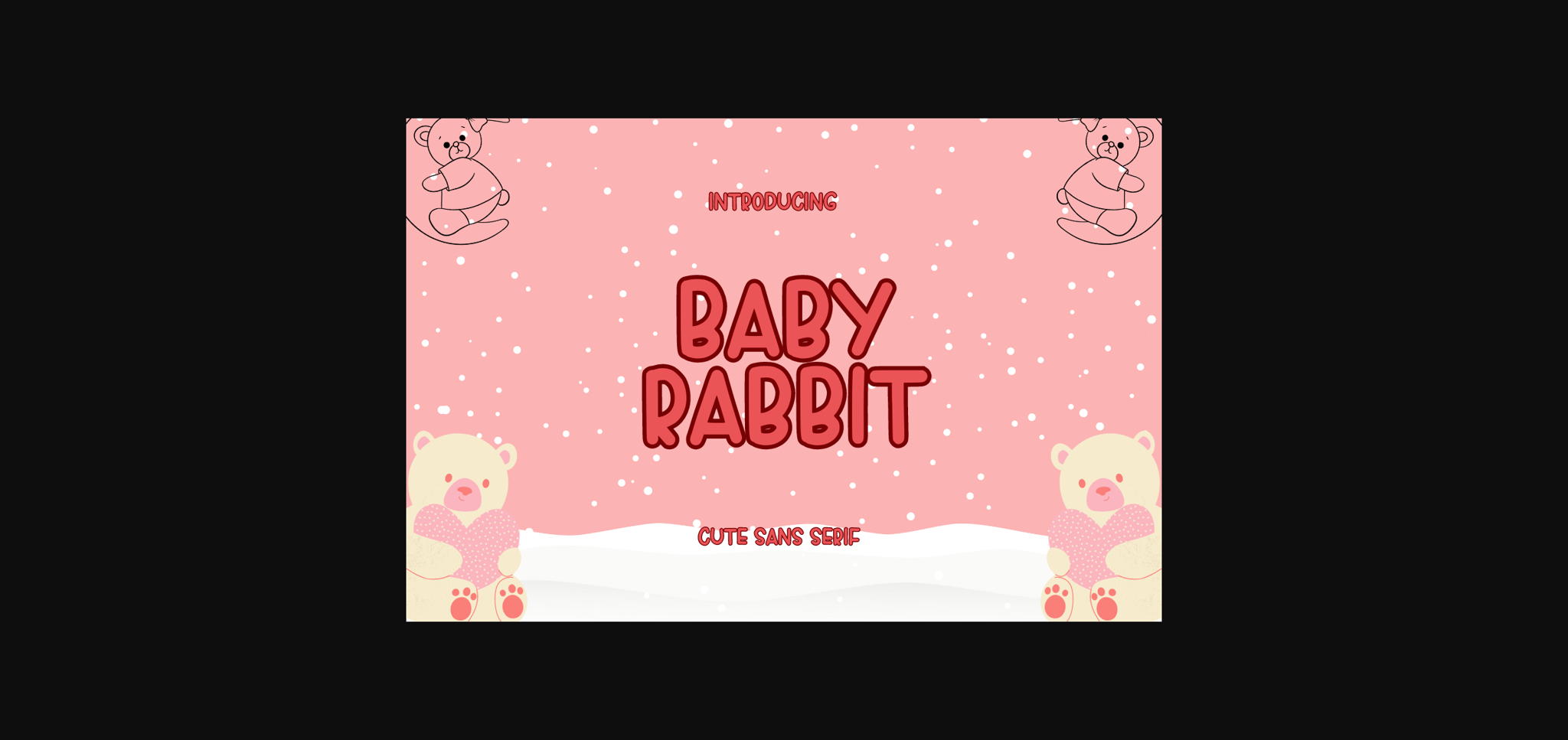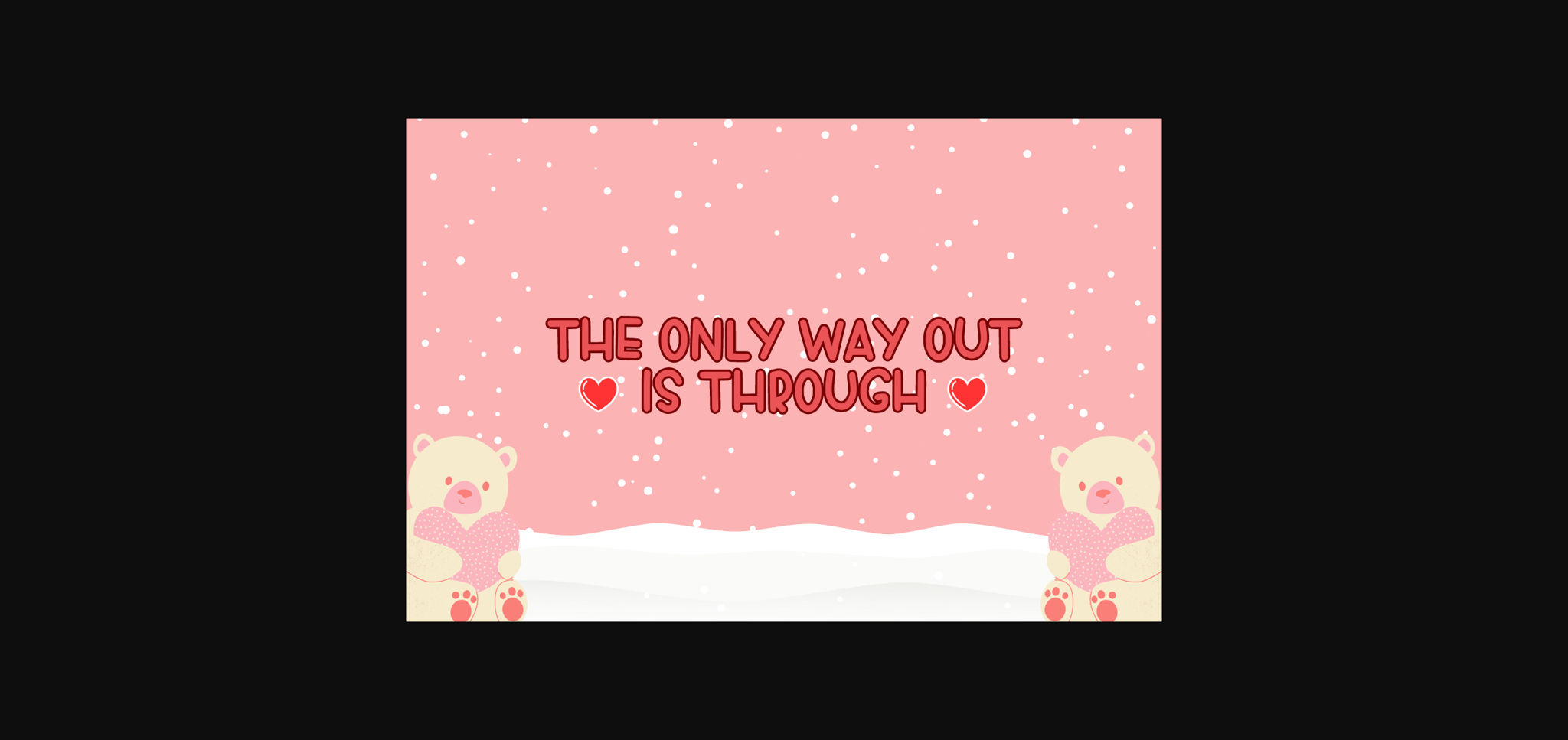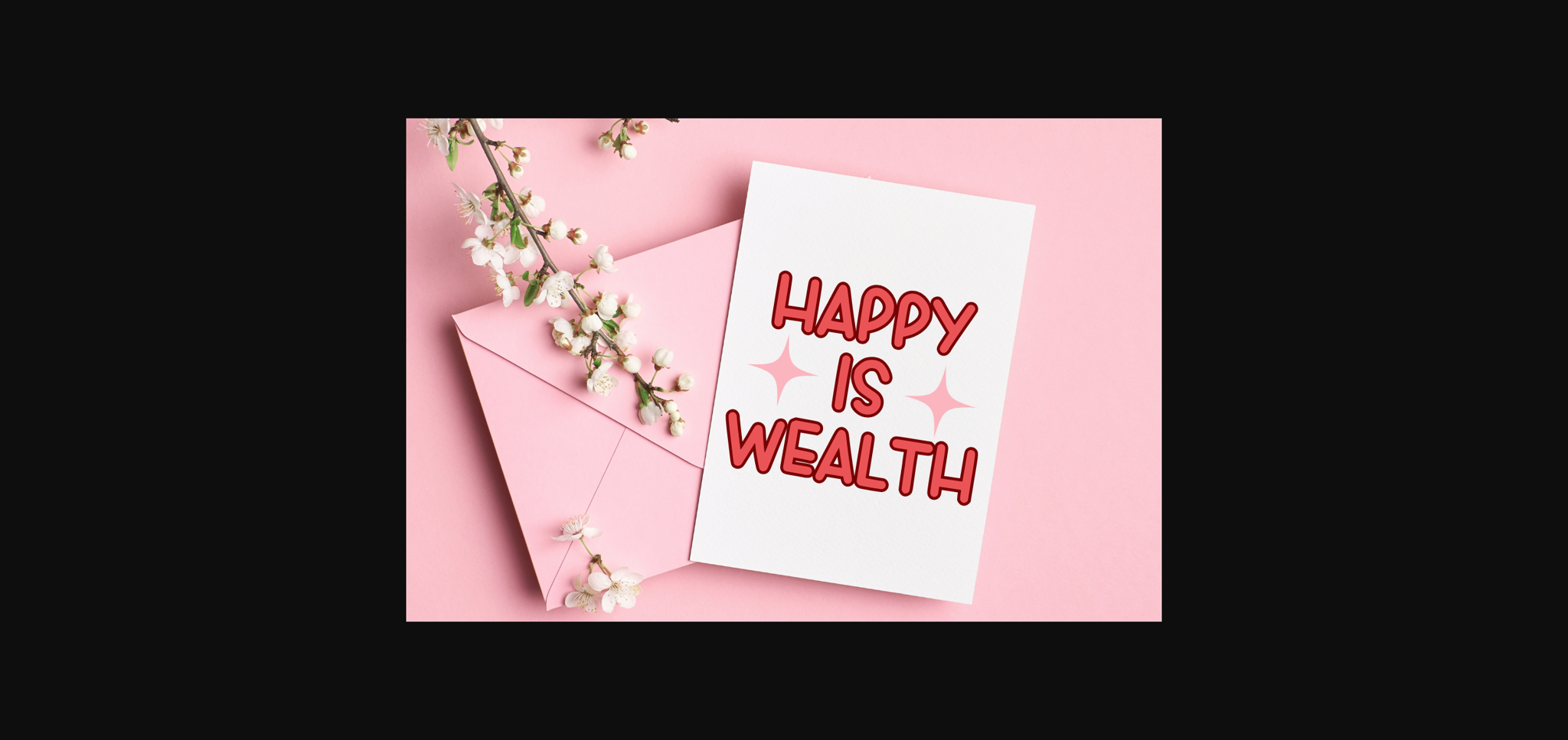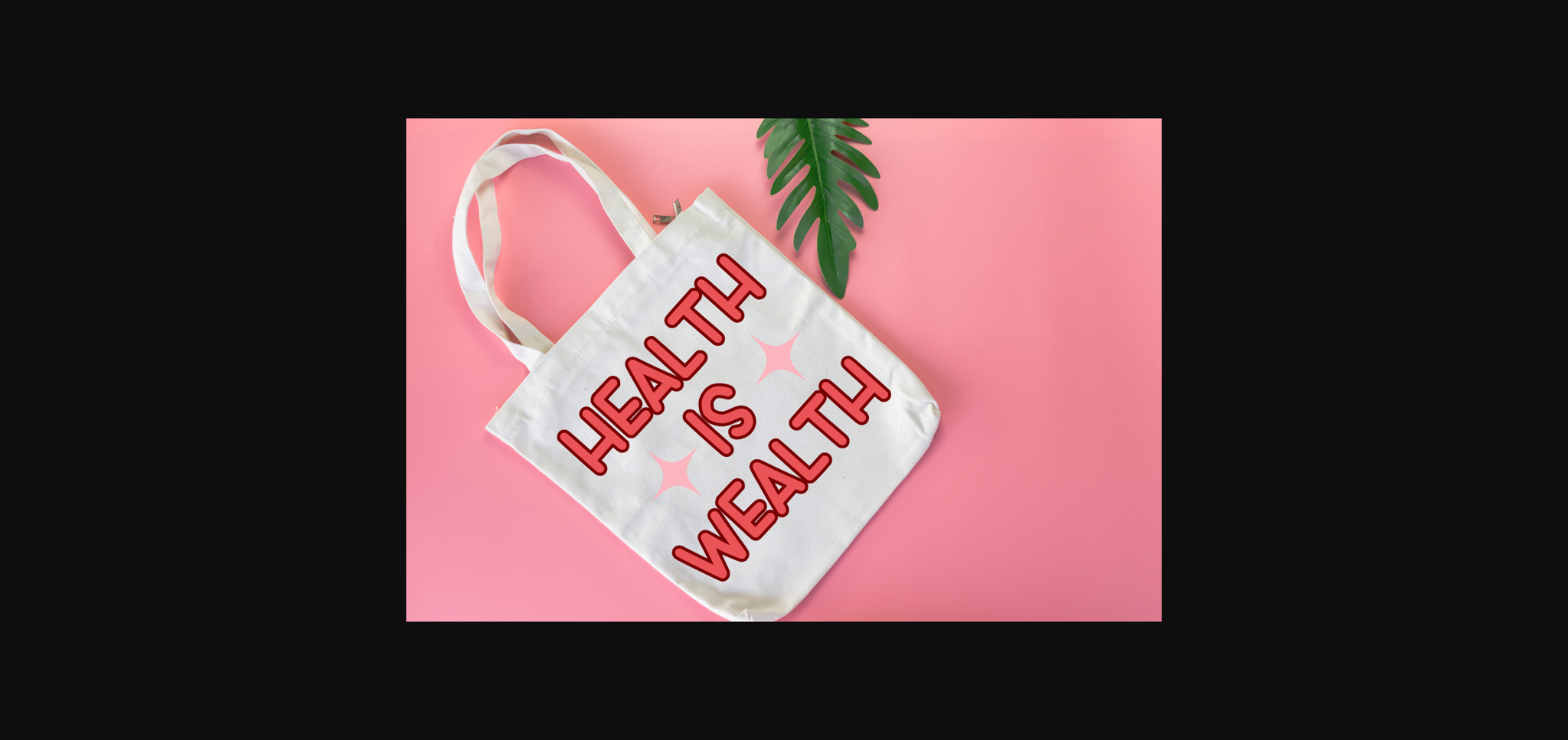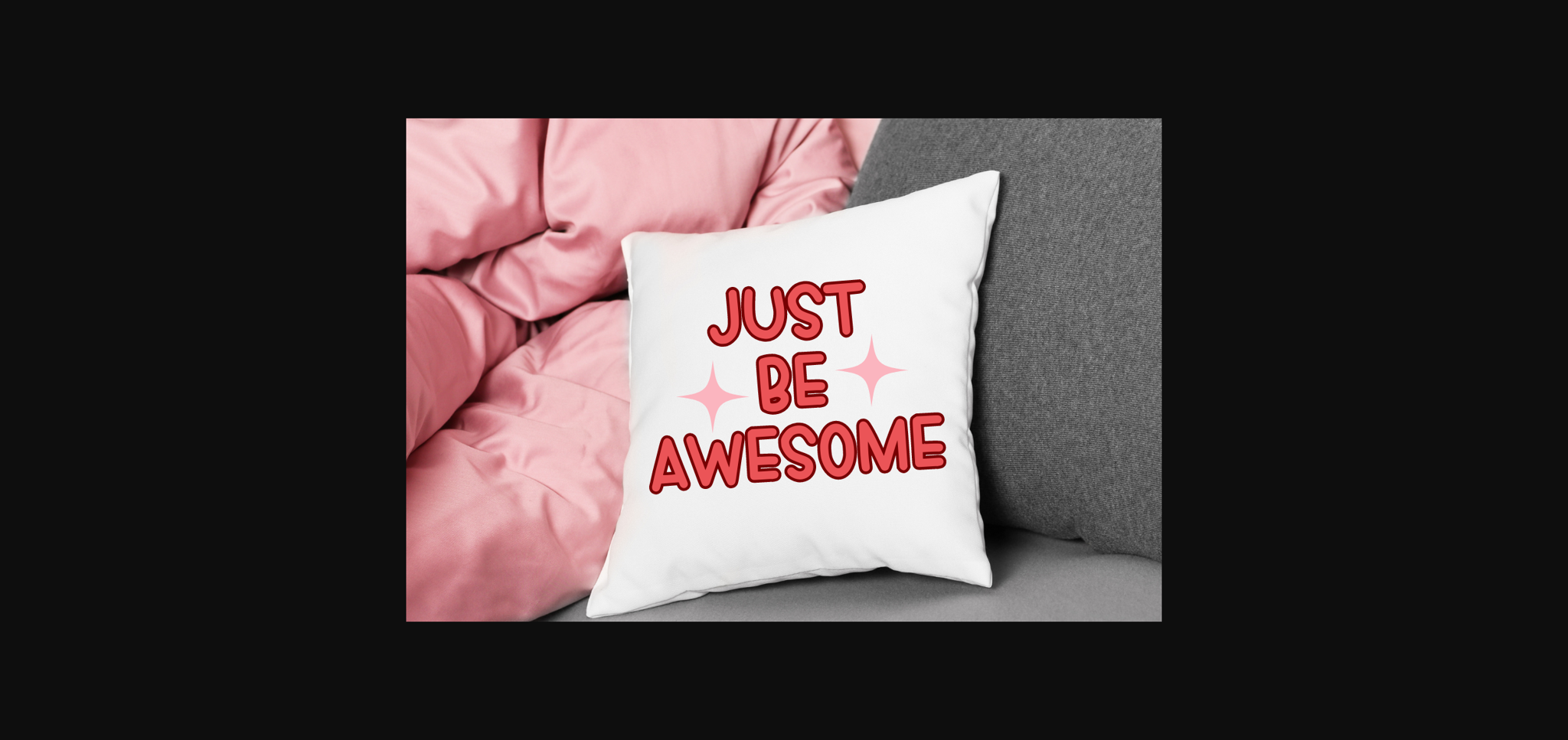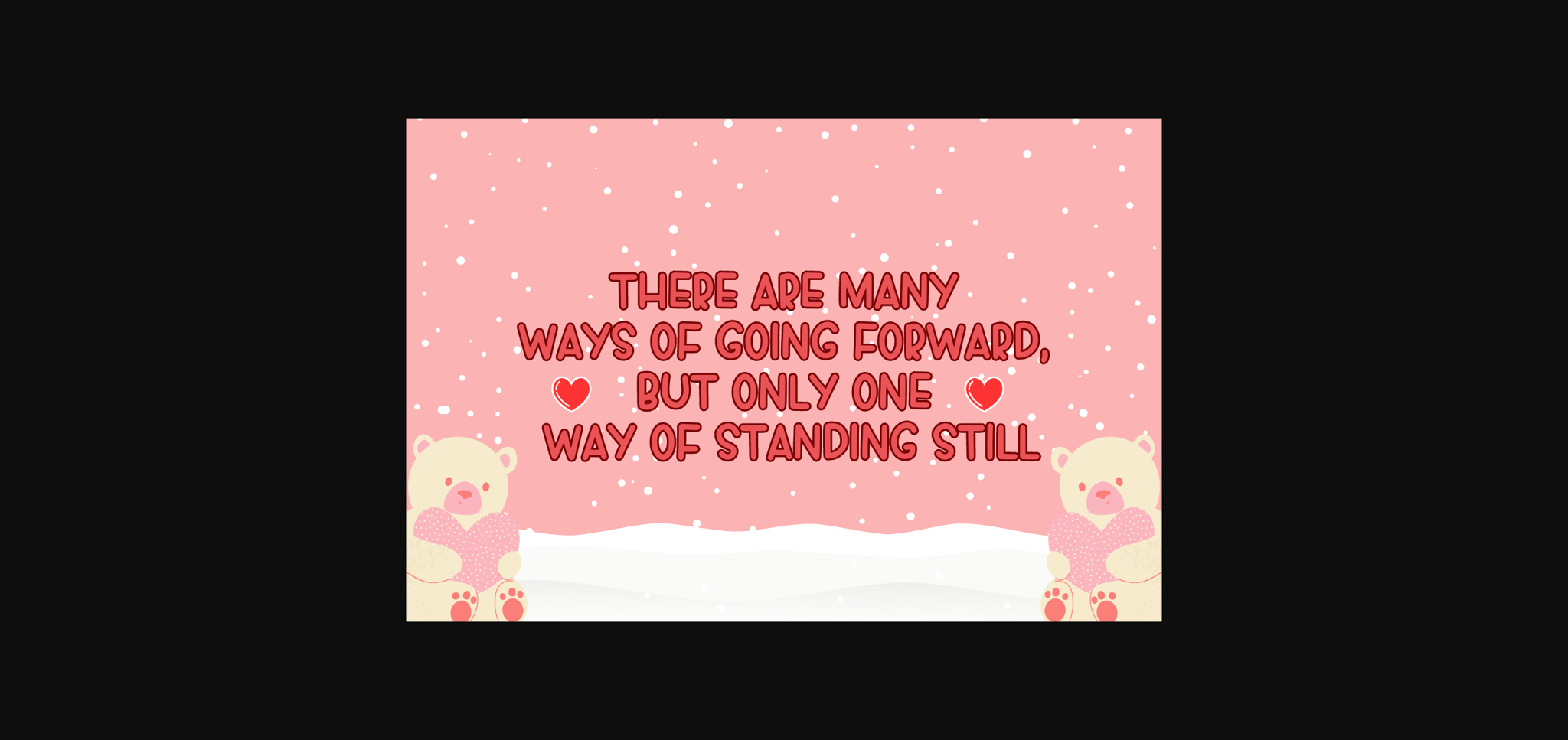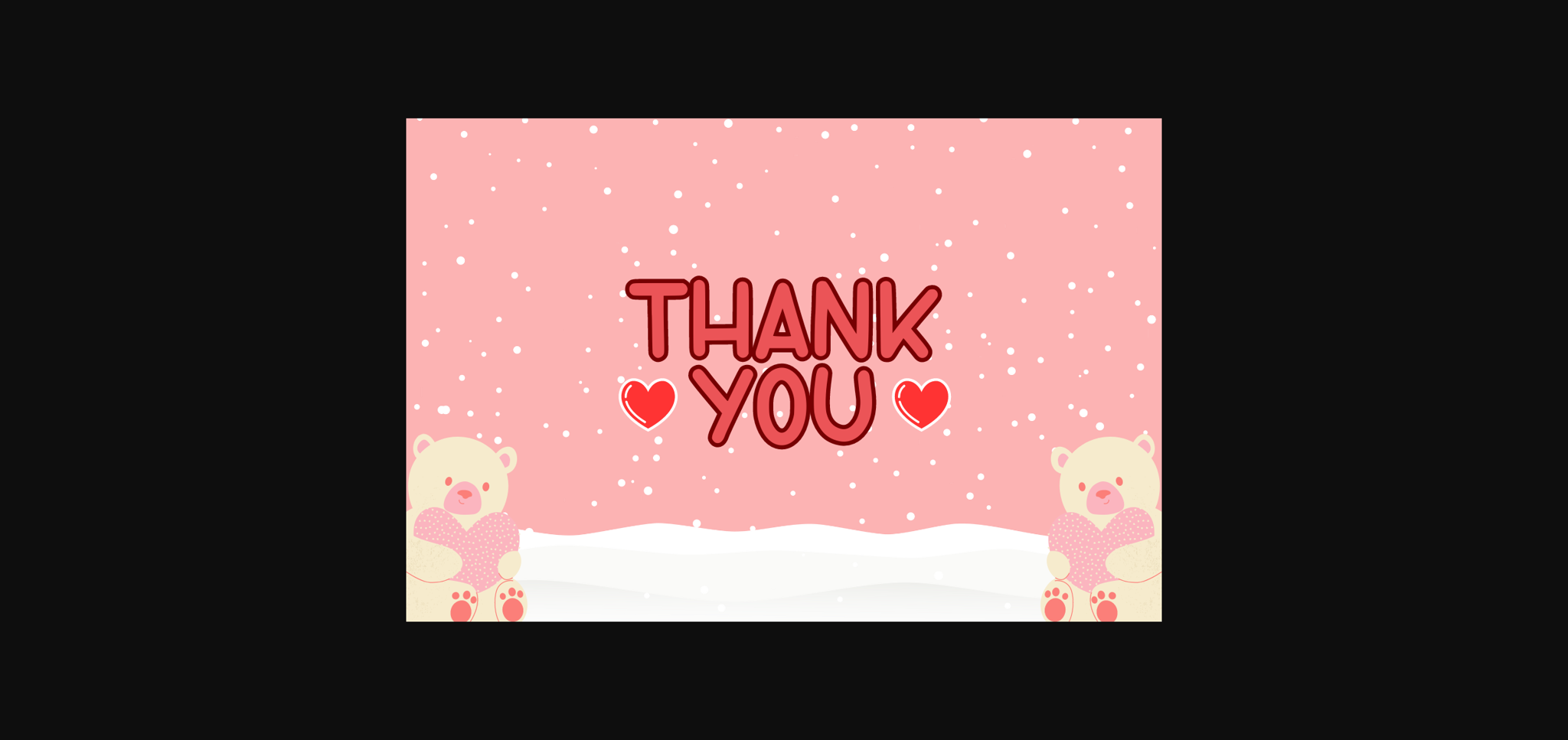
HomeSans Serif FontsBaby Rabbit Font Sans Serif Fonts Baby Rabbit Font FacebookXPinterestWhatsApp 1 of 9 ... Baby Rabbit Font Poster 2... Baby Rabbit Font Poster 3... Baby Rabbit Font Poster 4... Baby Rabbit Font Poster 5... Baby Rabbit Font Poster 6... Baby Rabbit Font Poster 7... Baby Rabbit Font Poster 8... Baby Rabbit Font Poster 9... About Baby Rabbit Font Baby Rabbit is a cute and adorable sans serif font. Perfect for social media, posters, stickers, notebooks and so much more. DOWNLOAD NOW People also explored Hollyday Brother Font Canada Eh Font Thalia Font Beautiful Holiday Font Horseland Font Kaliurang Signature Font Onemore Font Jorell Lieven Font Sweetheart Font 278 0 TagsBaby Rabbit Font Previous articleSaint Gnome FontNext articleSimply Charm Font LEAVE A REPLY Cancel reply Comment: Please enter your comment! Name:* Please enter your name here Email:* You have entered an incorrect email address! Please enter your email address here Website: Save my name, email, and website in this browser for the next time I comment. Personal Use Free BD Alm Personal Use Free Read more about this font Archipellago Personal Use Free Read more about this font Heart Personal Use Free Read more about this font Ammanda Personal Use Free Read more about this font BLOG Using Fonts in Digital Marketing: Tips to Strengthen Your Brand Identity In the realm of digital marketing, every visual element plays a crucial role in shaping a brand's identity, and fonts are no exception. The... Elegant Wedding Invitation Fonts – Handwritten & Script Fonts Top 10 Handwritten Fonts That Elevate Your Designs How to Cut Any Font on Cricut: Convert a Font to SVG (Free)